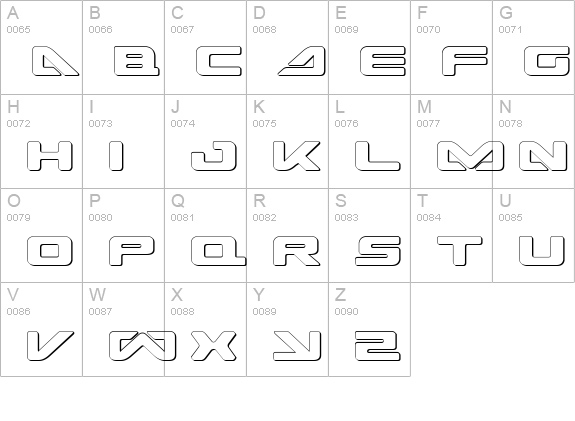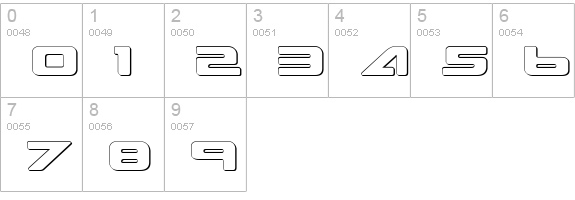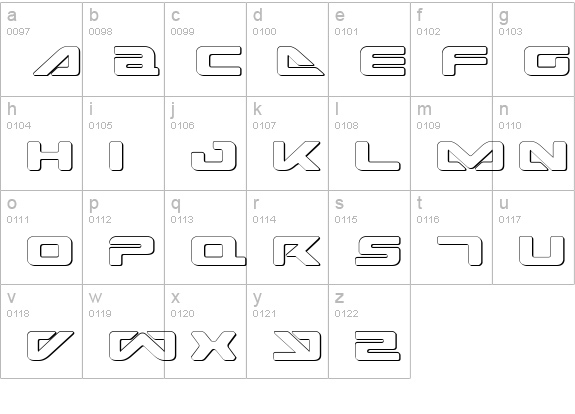
Sea Dog 2001 Shadow Font Details
Introducing the magnificent Sea Dog 2001 Shadow font, a captivating typeface that will instantly transport you to the depths of the sea with its mesmerizing design. This unique font boasts an exquisite blend of boldness and elegance, making it perfect for a wide range of creative projects. Sea Dog 2001 Shadow font features intricate shadow details that add depth and dimension to each letter, creating a visually stunning effect. Its carefully crafted curves and sharp edges give it a distinct personality, making it a standout choice for logos, branding materials, titles, and more. But the best part? Sea Dog 2001 Shadow font is absolutely free! That's right, this exceptional font is freely available to download at FontsMarket.com. Now, you can enhance your designs without having to worry about breaking the bank. The generous nature of this font allows you to explore your creativity without any constraints, making it an invaluable addition to any designer's toolkit. Whether you're working on a nautical-themed project, a mysterious adventure game, or simply want to add a touch of sophistication to your designs, Sea Dog 2001 Shadow font is the perfect choice. Its versatility and striking visual appeal will captivate your audience and leave a lasting impression. So why wait? Dive into the world of Sea Dog 2001 Shadow font today and unleash your creativity like never before. With its seamless integration into various design software and its availability for free at FontsMarket.com, this font is a must-have for any design enthusiast or professional. Give your projects a touch of elegance and intrigue with Sea Dog 2001 Shadow font and watch them come to life.